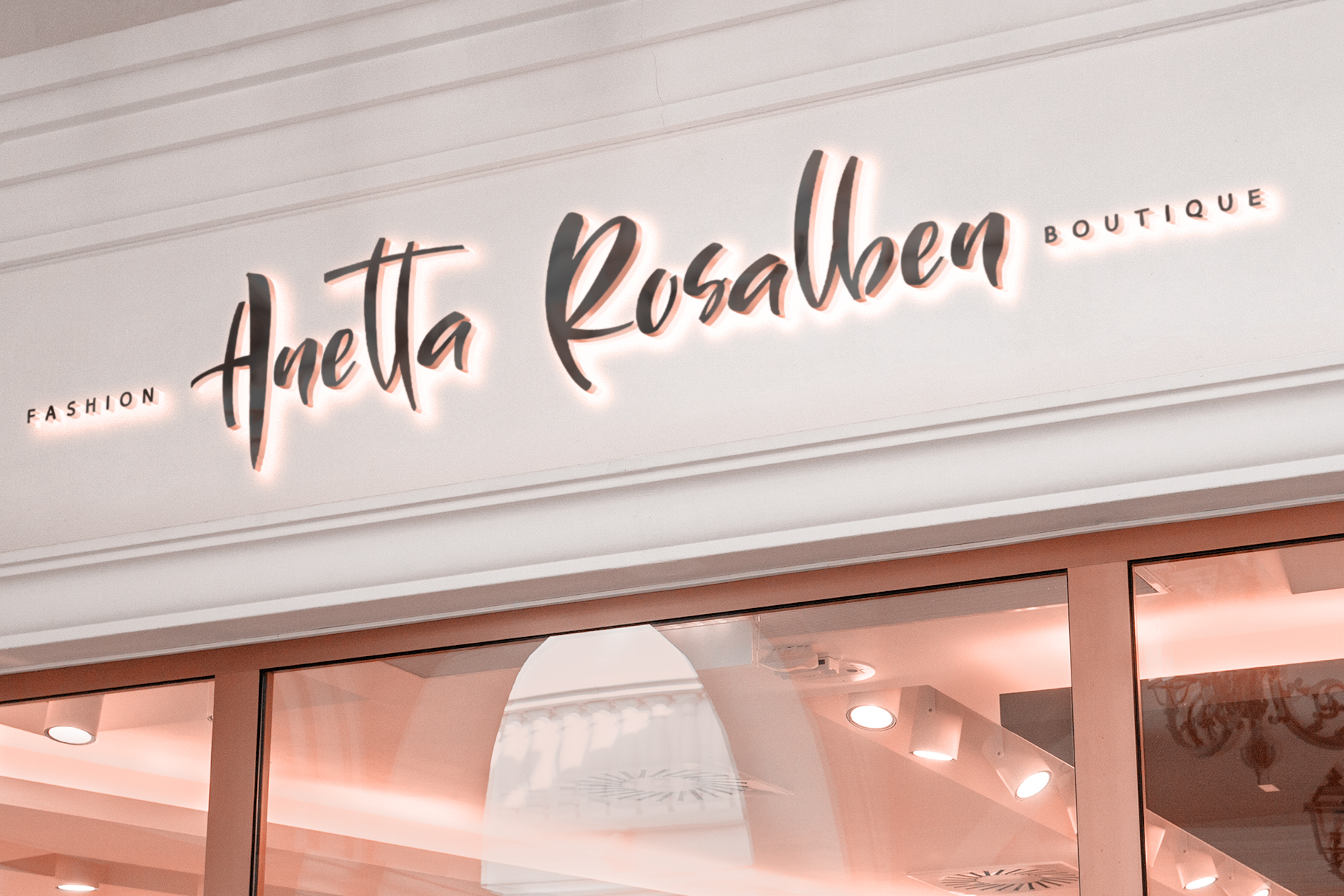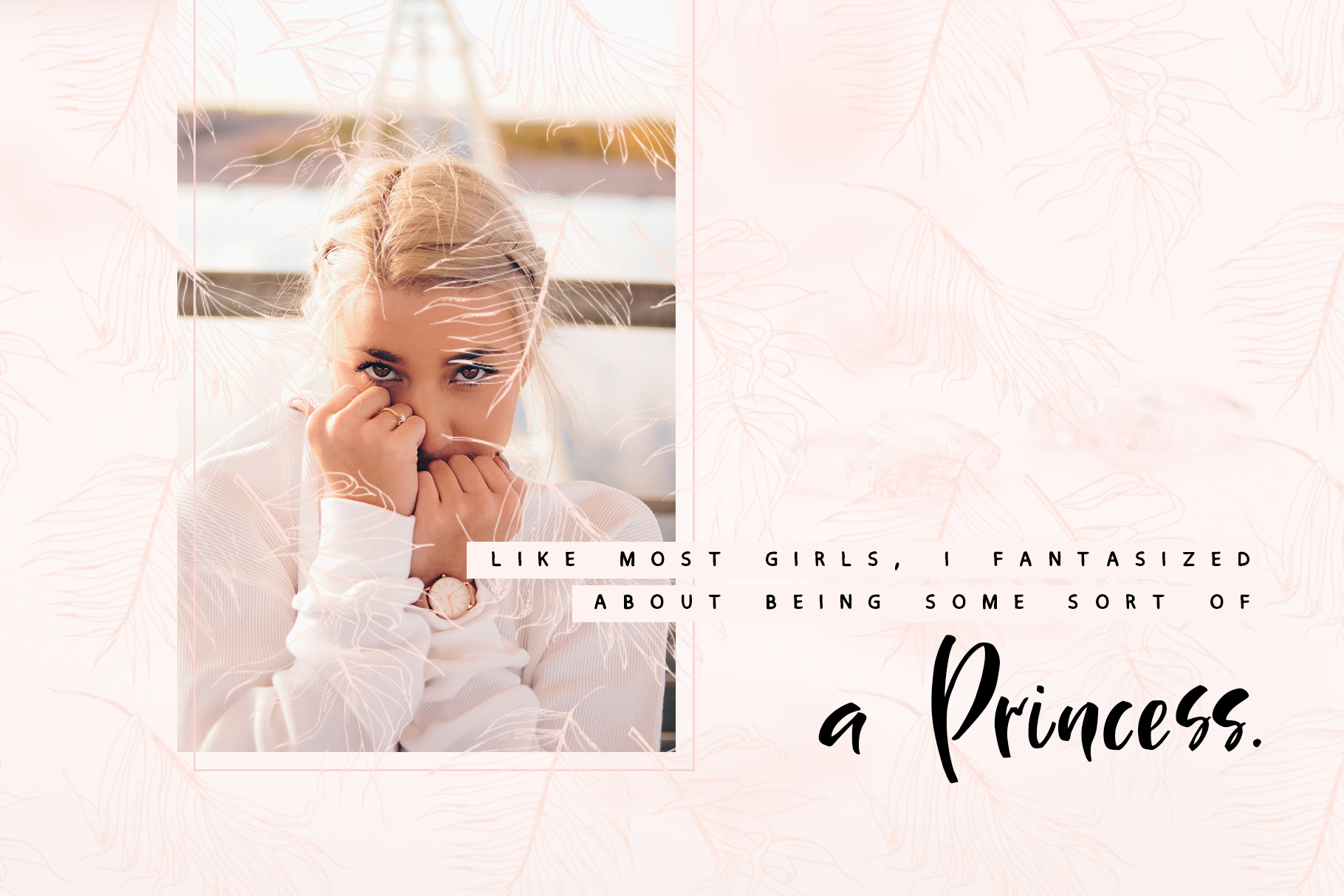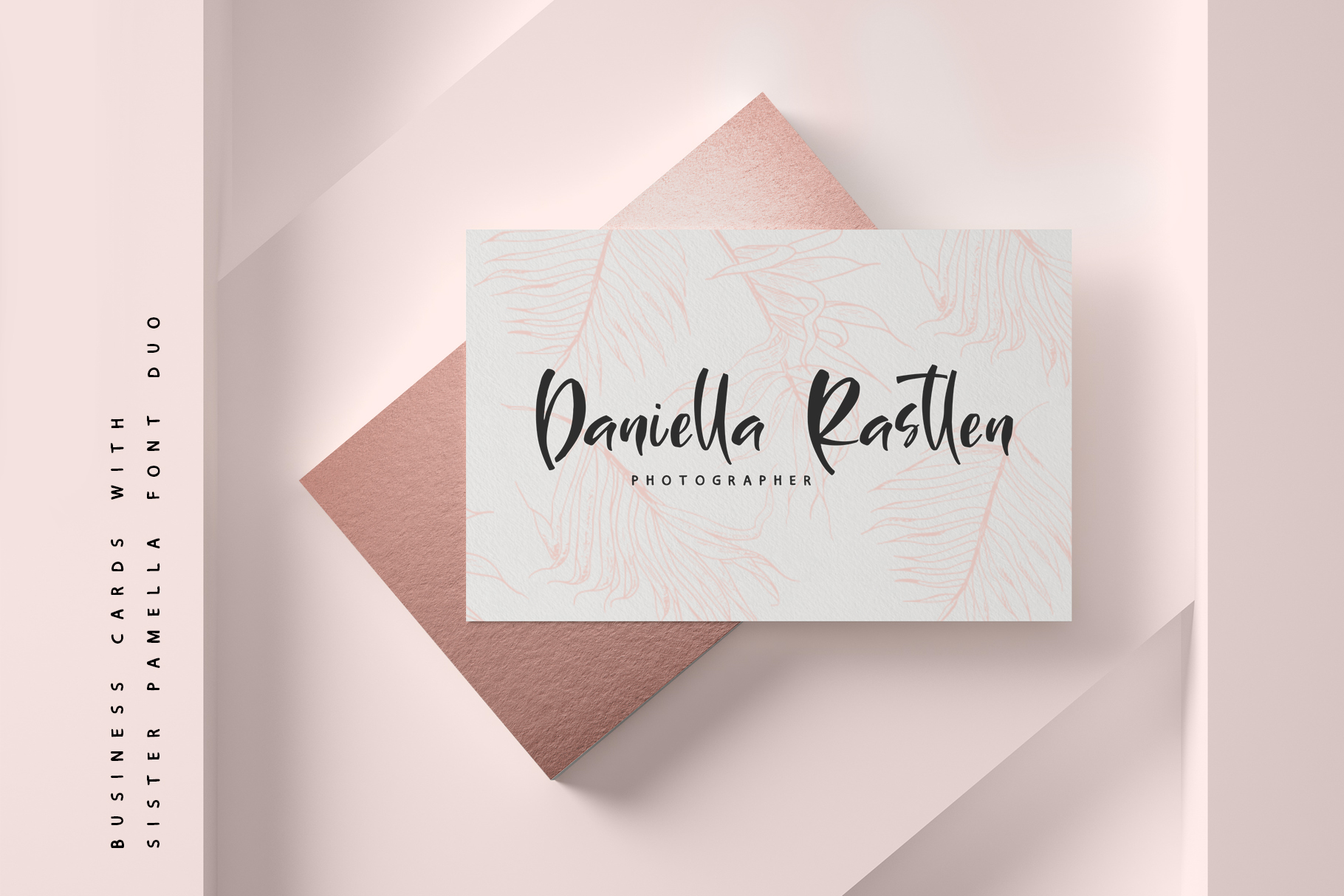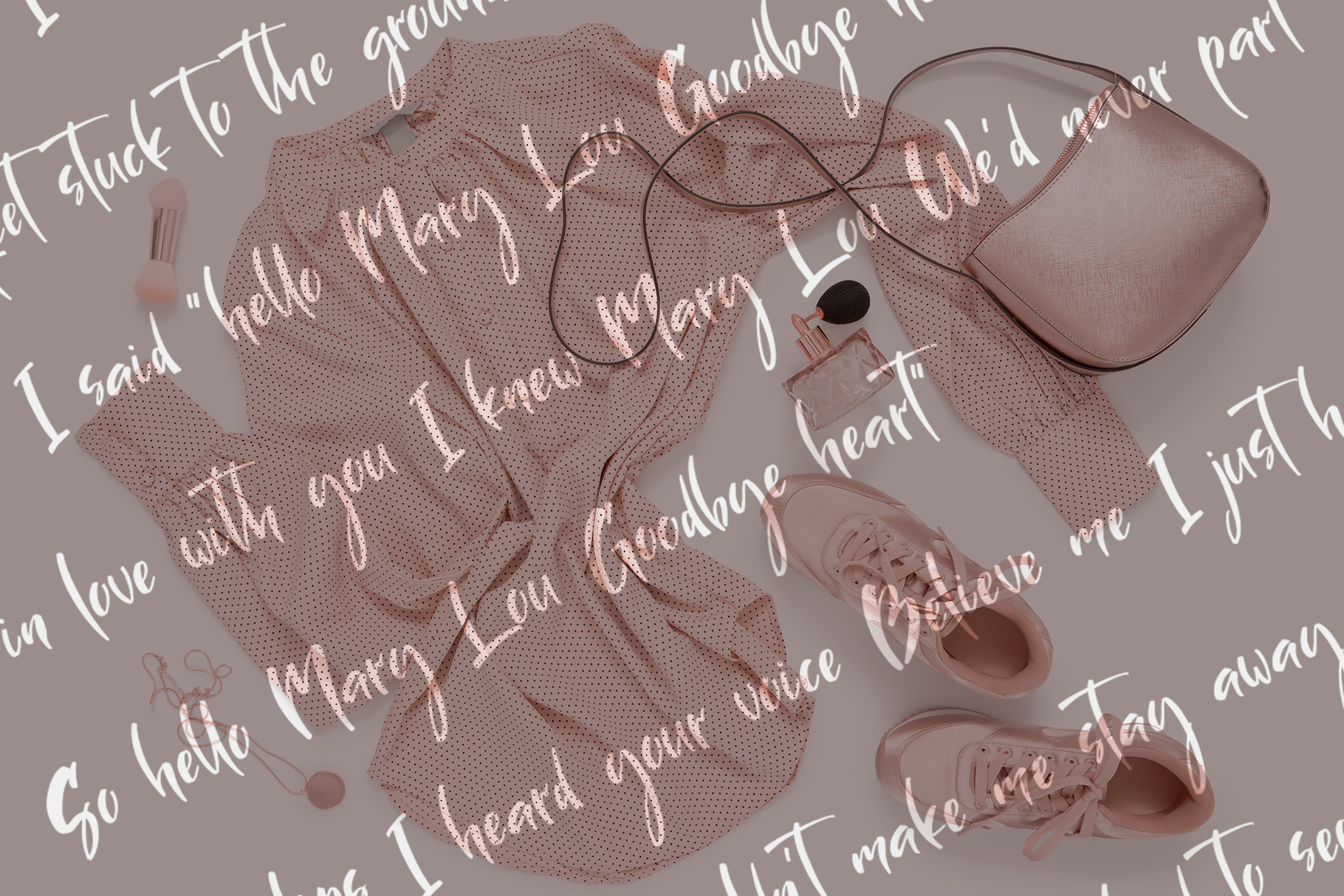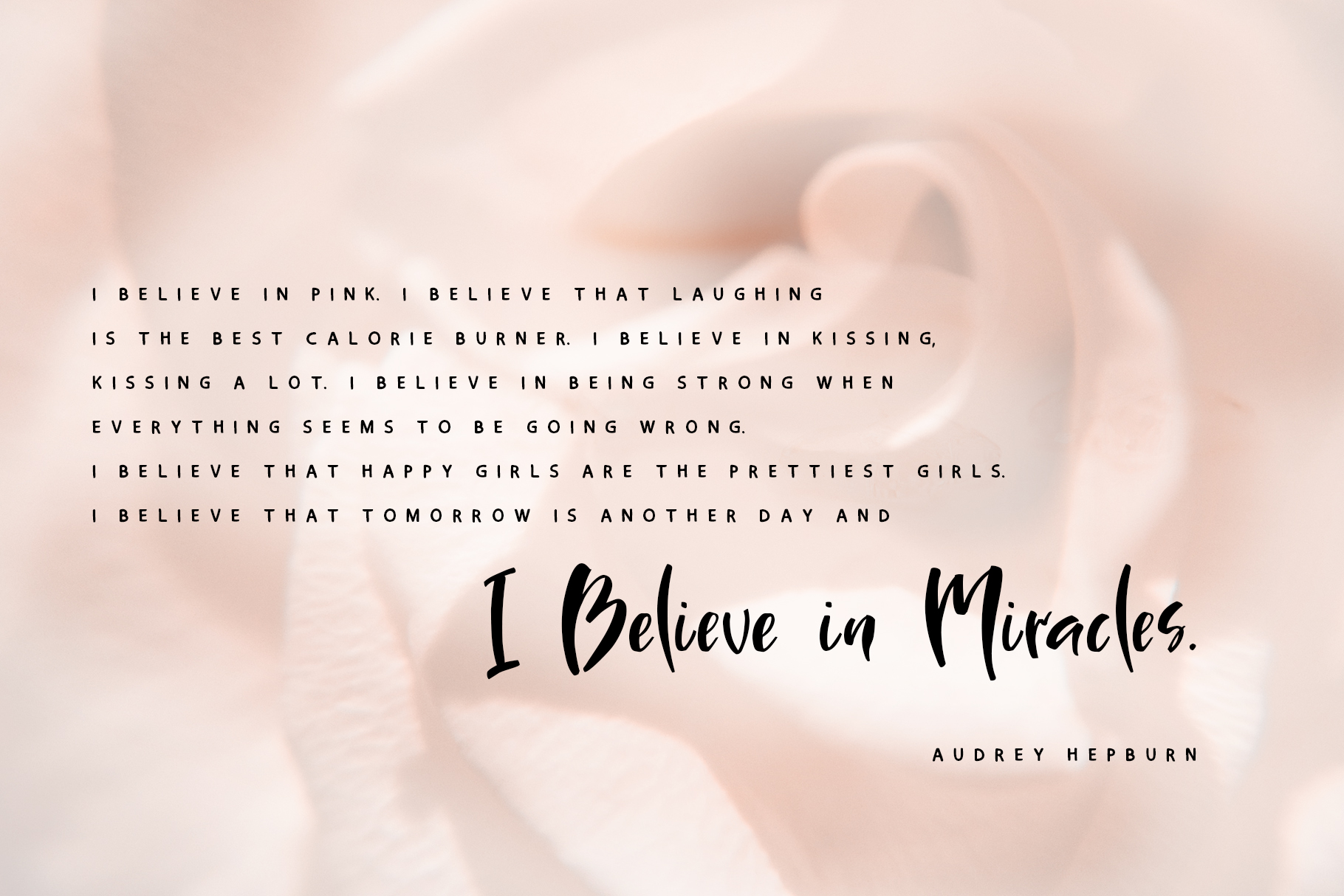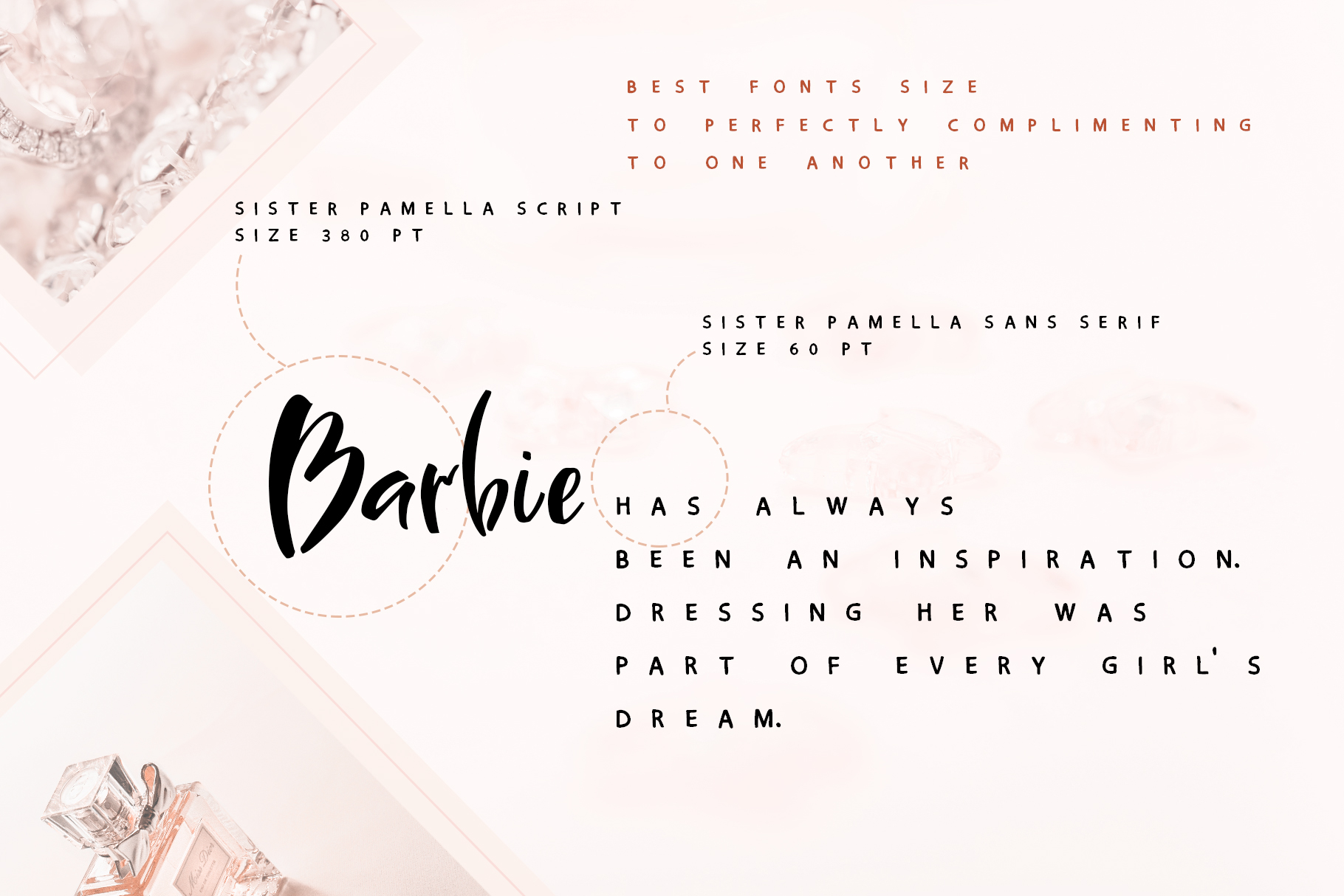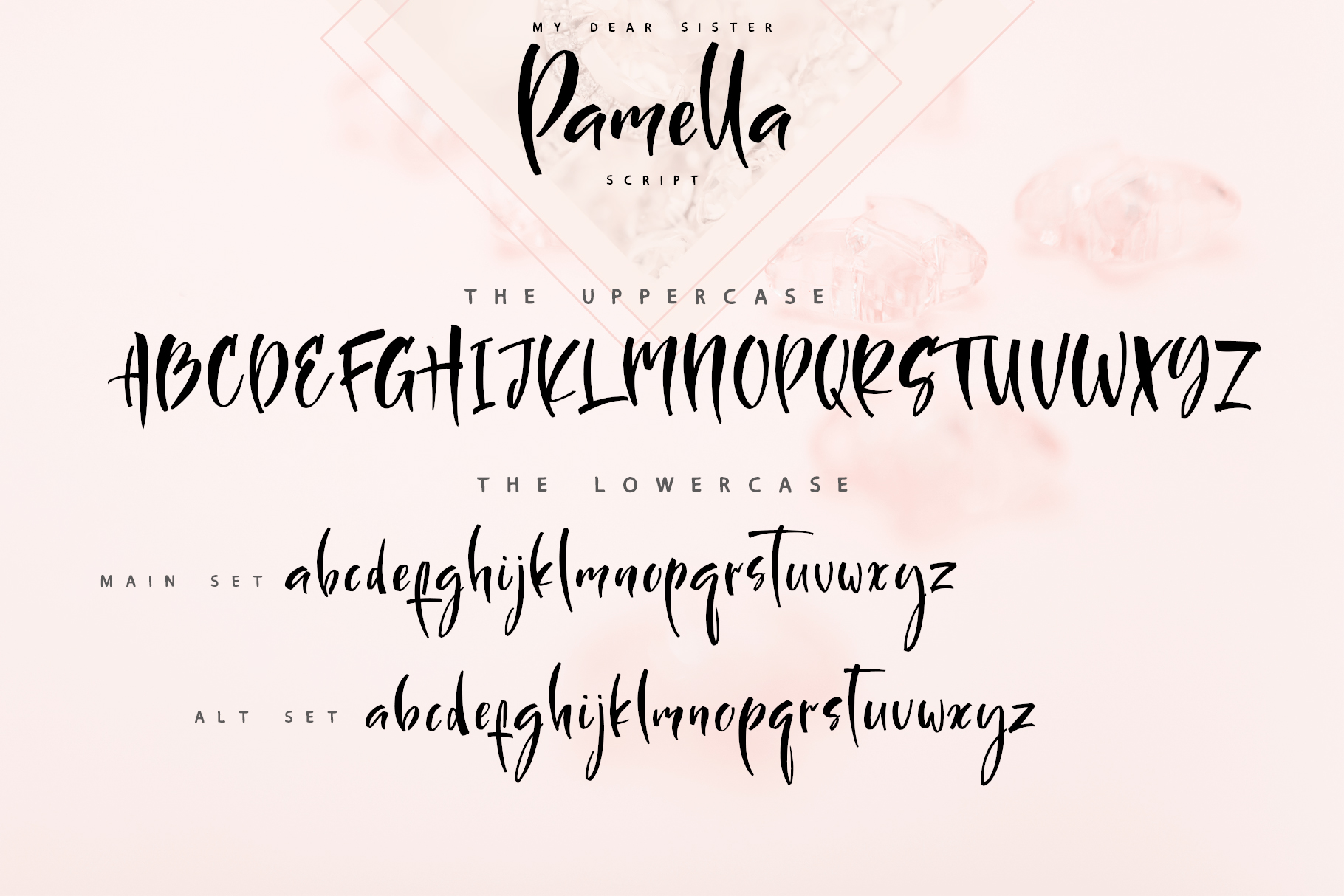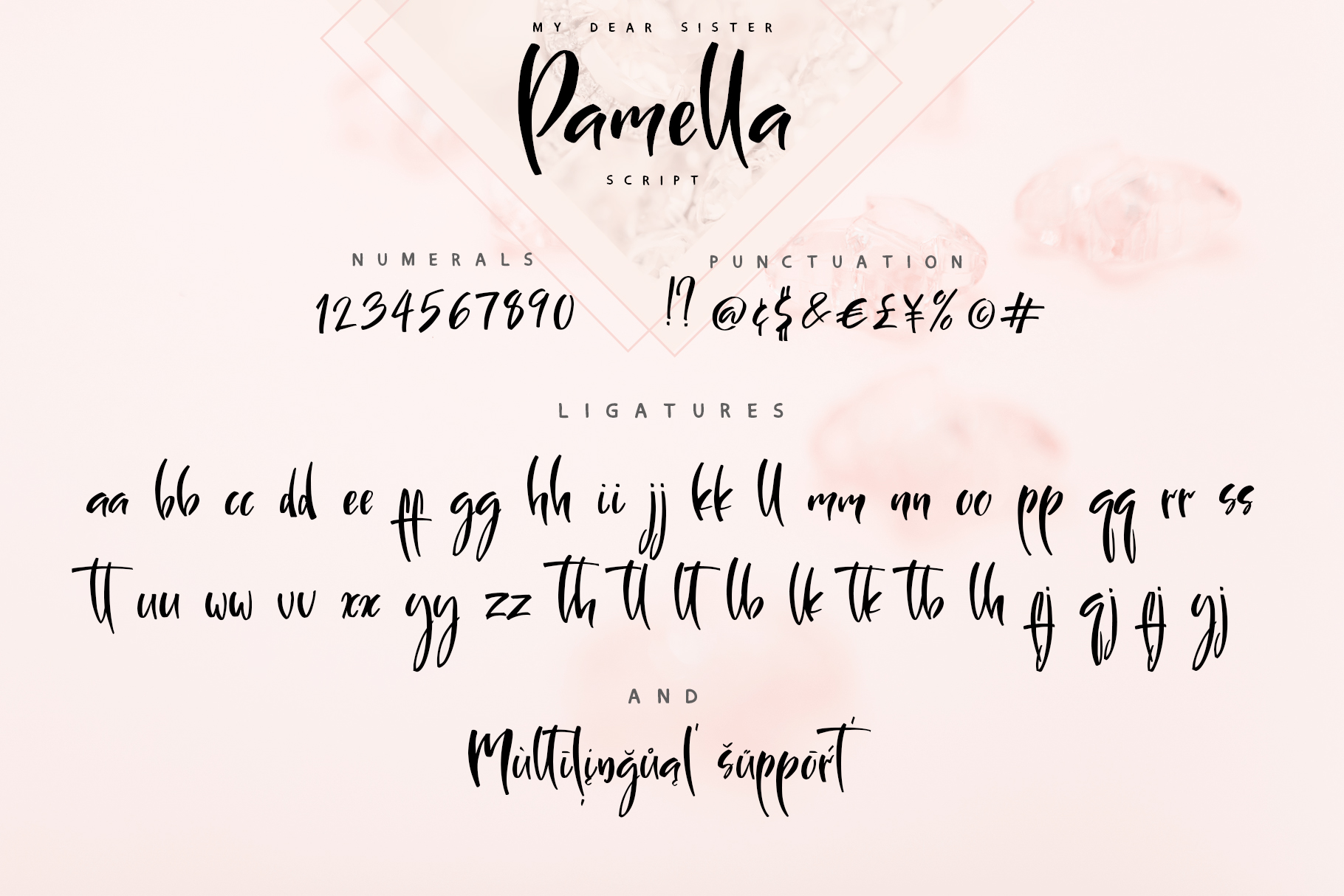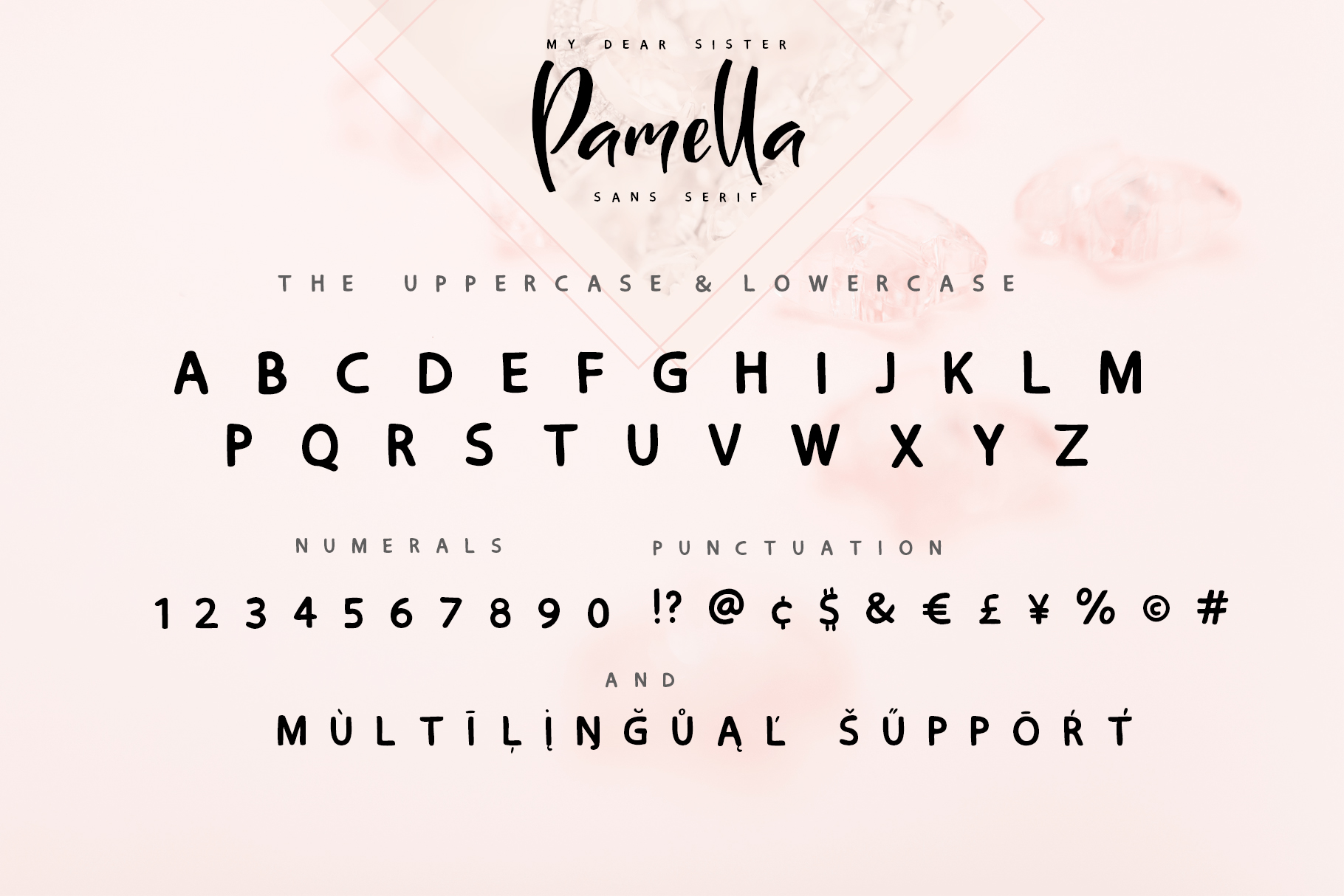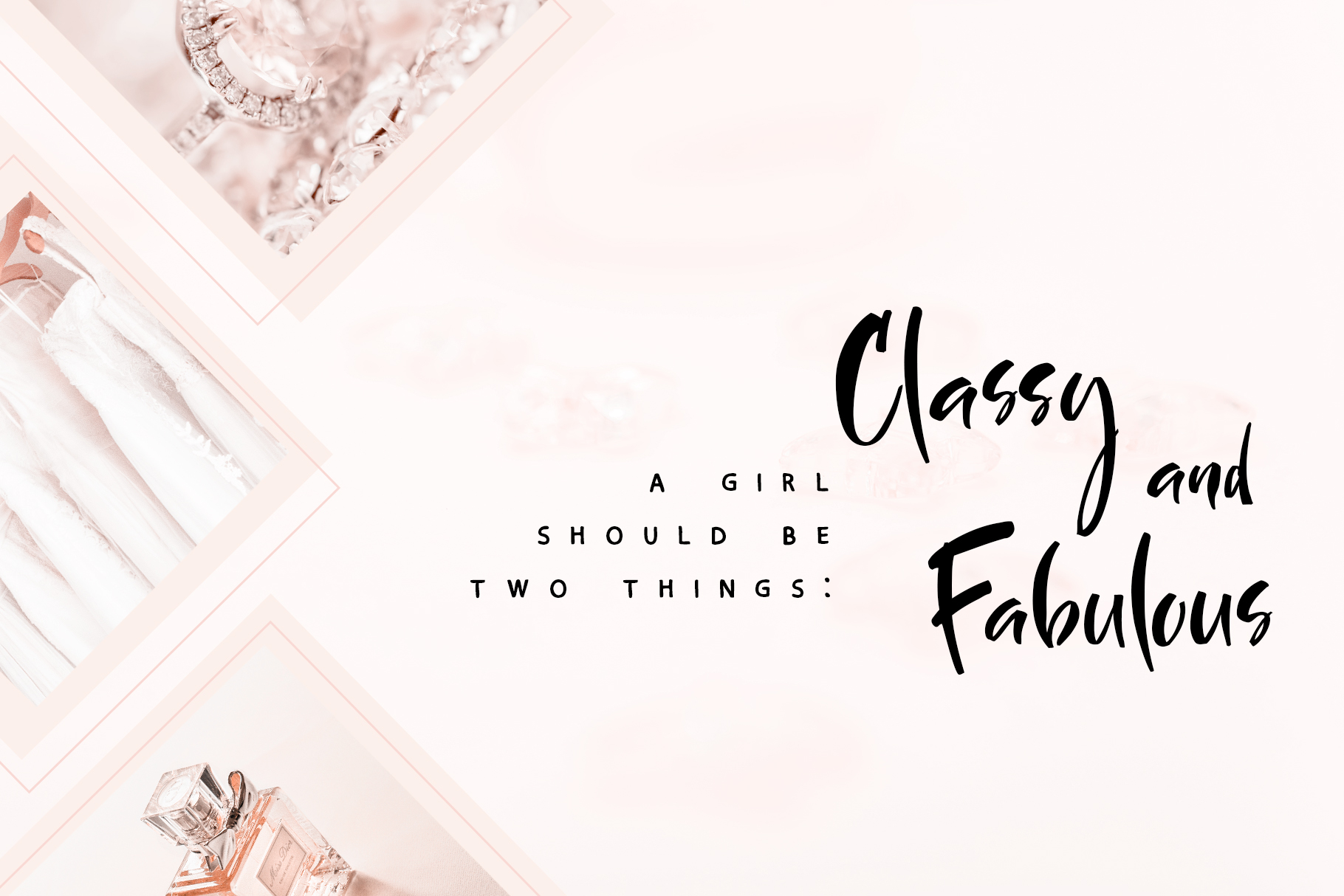
Sister Pamella Font
About Sister Pamella Font
With a handwritten script font and a modern sans serif font, Sister Pamella font duo will be perfect for use in all your design projects! These fonts perfectly complement one another and can give your designs a casually chic appeal.